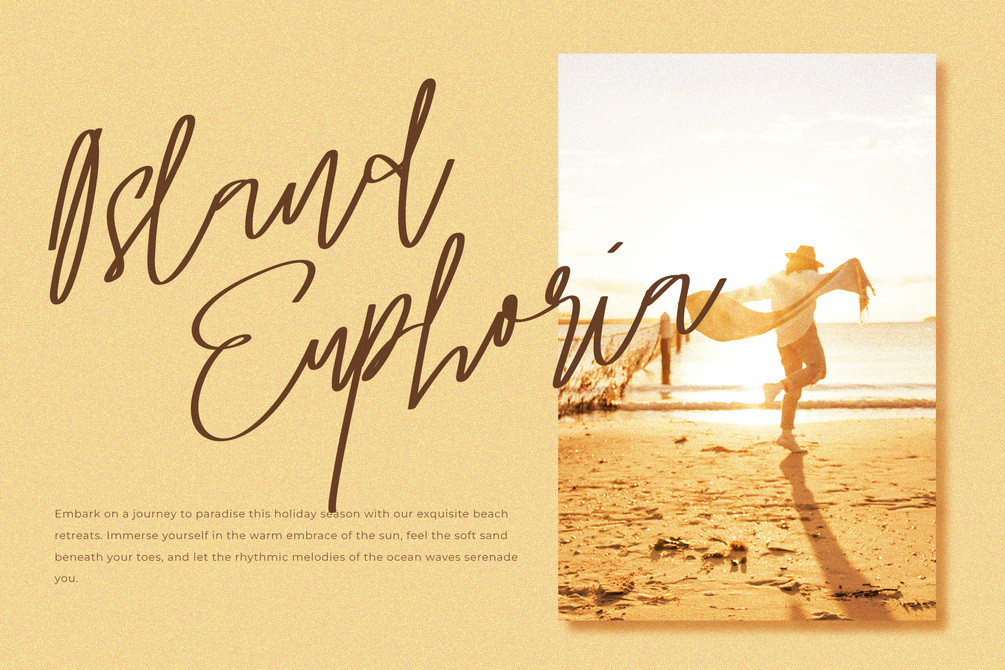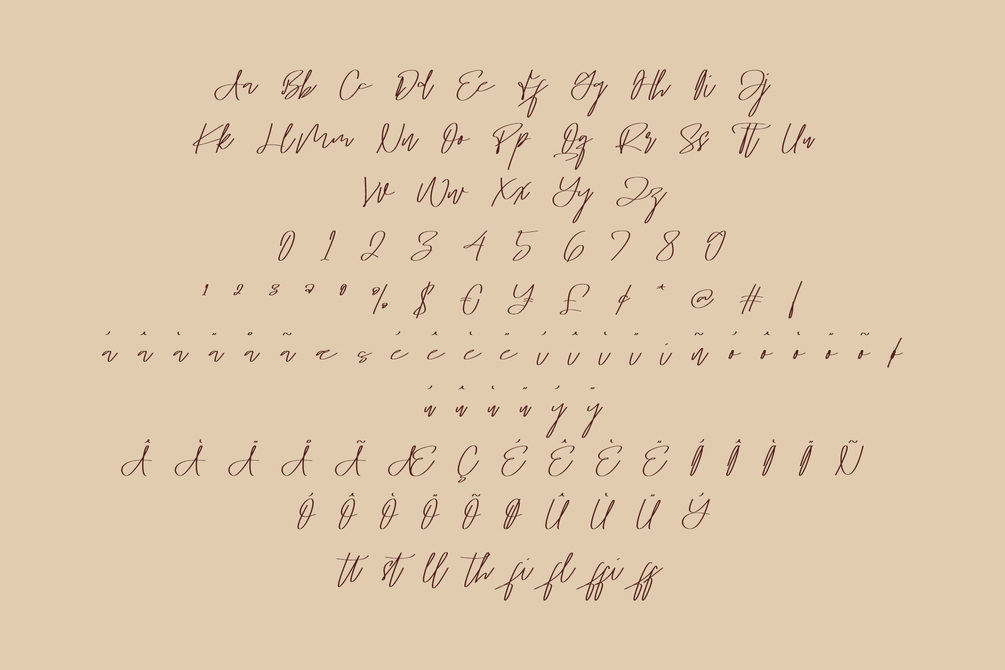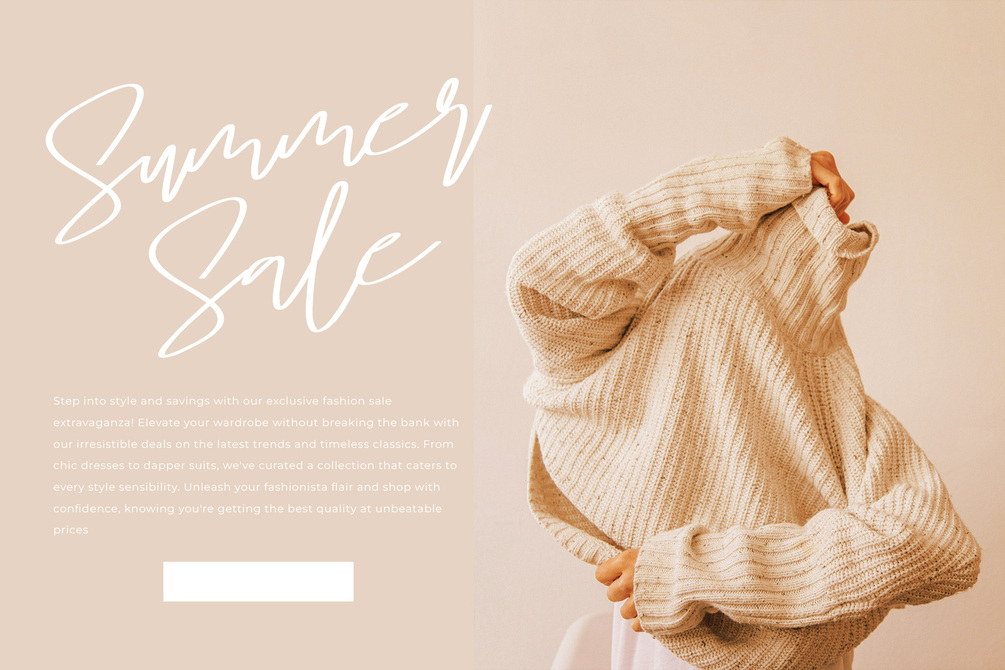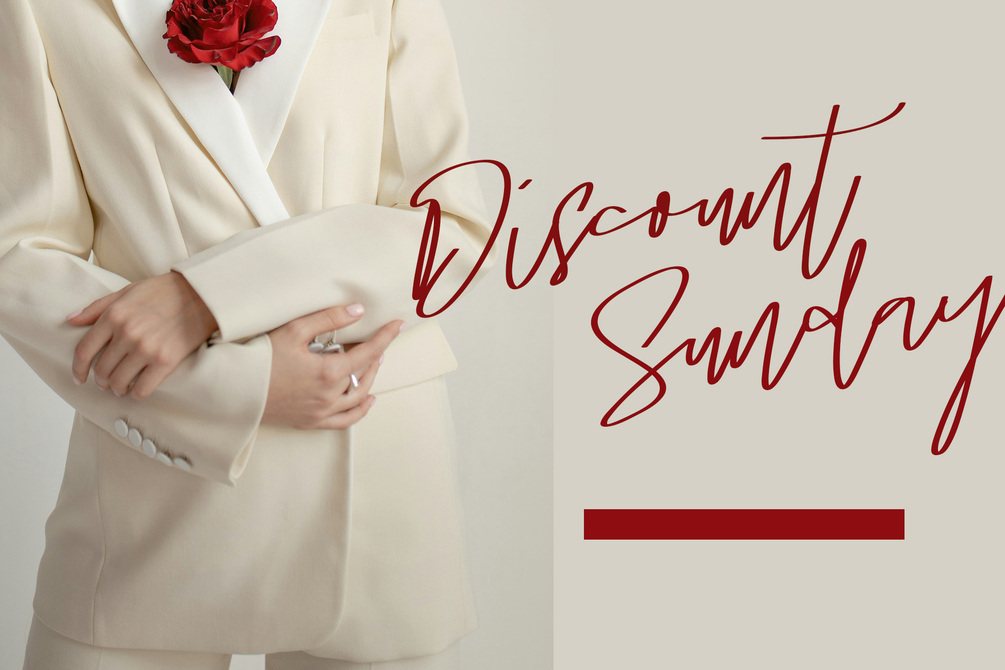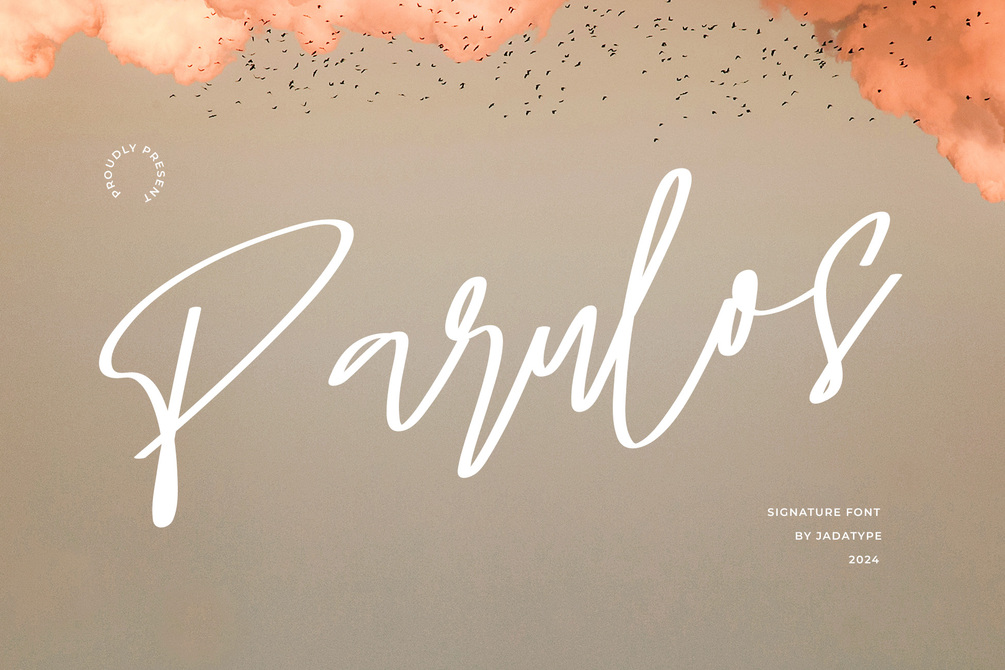
Parulos Font
Parulos is a script font that comes with an stylish signature. suitable for product, Branding, social media, logotype and so on. contains standard English letters, numbers, punctuation, and several accents that support multilingualism.